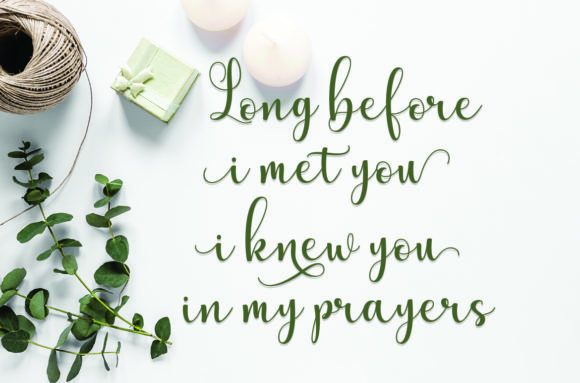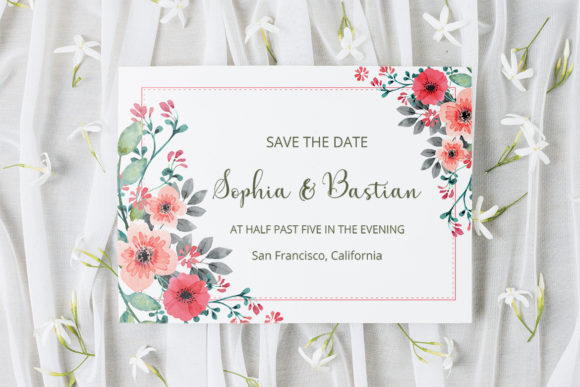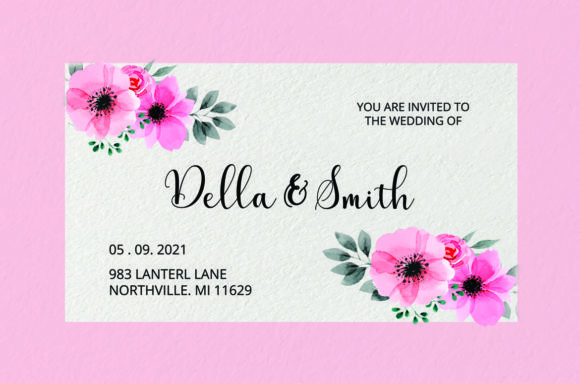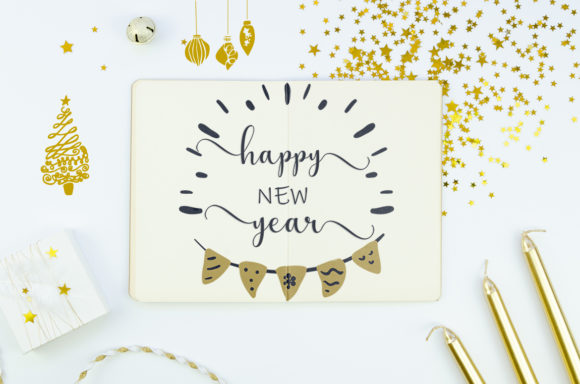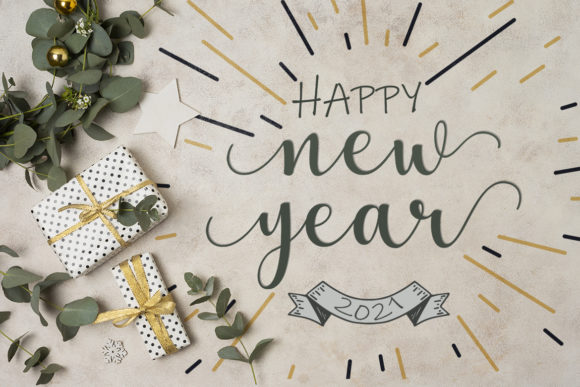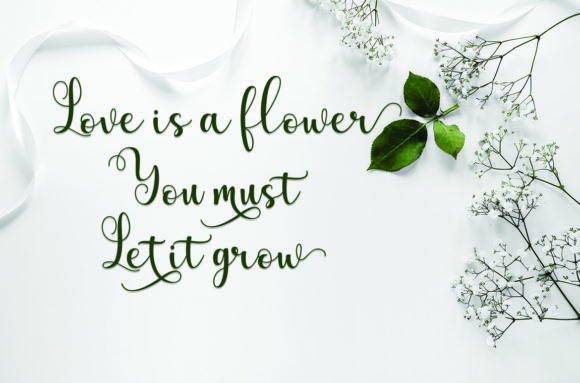
Discover the Elegance of Hellinda Font: Elevate Your Designs with Delicate Handwritten Style
In the world of typography, fonts play a crucial role in bringing designs to life. Among the myriad of fonts available, Hellinda stands out as a delicate, elegant, and flowing handwritten font that has captured the hearts of designers and crafters alike. With its beautiful and well-balanced characters, Hellinda seamlessly matches a wide pool of designs, making it a versatile addition to any creative project.
The Characteristics of Hellinda Font
Hellinda boasts a range of features that make it a standout font. Some of its key characteristics include:
- Varying Baseline: Hellinda’s unique varying baseline gives it a natural, handwritten feel that sets it apart from more traditional fonts.
- Smooth Lines: The font’s smooth lines and curves create a sense of fluidity, making it perfect for designs that require a touch of elegance.
- Gorgeous Glyphs: Hellinda features a range of beautiful glyphs that add an extra layer of depth and character to any design.
- Stunning Alternates: The font also includes stunning alternates, allowing designers to experiment with different variations and create truly unique pieces.
Why Choose Hellinda Font?
So, why should designers and crafters choose Hellinda font for their projects? Here are just a few compelling reasons:
- Versatility: Hellinda’s elegant and flowing design makes it suitable for a wide range of projects, from wedding invitations and branding materials to packaging and digital media.
- Emotional Connection: The font’s delicate and handwritten style creates an emotional connection with the viewer, making it perfect for designs that require a personal touch.
- Easy to Read: Despite its elegant nature, Hellinda is surprisingly easy to read, making it a great choice for body text as well as headlines.
Using Hellinda Font in Your Designs
Adding Hellinda font to your designs is a straightforward process that can elevate your creative ideas to new heights. Here are a few tips for incorporating Hellinda into your work:
- Pair it with Other Fonts: Hellinda pairs beautifully with other fonts, allowing you to create stunning contrast and visual interest in your designs.
- Experiment with Colors: The font’s elegant style looks great in a range of colors, from soft pastels to bold and bright hues.
- Play with Alternates: Don’t be afraid to experiment with Hellinda’s stunning alternates to add an extra layer of creativity to your designs.
In conclusion, Hellinda font is a delicate, elegant, and flowing handwritten font that is sure to elevate your designs to new heights. With its beautiful and well-balanced characters, varying baseline, smooth lines, gorgeous glyphs, and stunning alternates, Hellinda is the perfect addition to any creative project. Whether you’re a designer, crafter, or simply someone who appreciates beautiful typography, Hellinda font is a must-have in your collection.